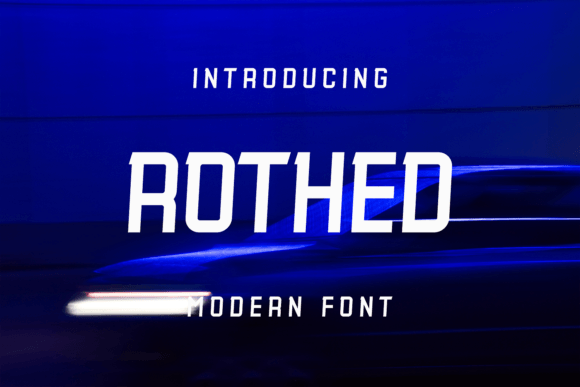
Embark on a typographic adventure with Rothed, the captivating display font that sparks creativity and transforms your designs into captivating masterpieces. Created by the talented lelevien, Rothed's playful and distinctive characters dance across your screen like notes of a vibrant symphony, harmonizing to create an unforgettable visual experience. Whether crafting striking logos, eye-catching headlines, or enchanting posters, Rothed emerges as the maestro of your design orchestra, elevating your creations to new heights of visual allure. Unleash the power of Rothed and let your imagination run wild as you witness the transformation of ordinary words into captivating works of art.
With Rothed as your creative companion, transcend the mundane and embrace the extraordinary. This font doesn't merely occupy space on your screen; it ignites a spark within you, propelling your designs to the forefront of innovation. Its versatility knows no bounds, effortlessly adapting to any project, any style, any vision. Let Rothed be your muse, guiding you through the realm of design possibilities, unveiling hidden depths of creativity you never knew existed.
Immerse yourself in the world of Rothed, where letters dance with grace and precision, captivating your audience with their elegant charm. This font is more than just a collection of characters; it's a gateway to a world of limitless expression, where your imagination reigns supreme. Unleash the power of Rothed and let your designs blossom into breathtaking works of art that leave an indelible mark on the hearts and minds of all who encounter them. Embrace the magic of Rothed and unlock the true potential of your creativity today!